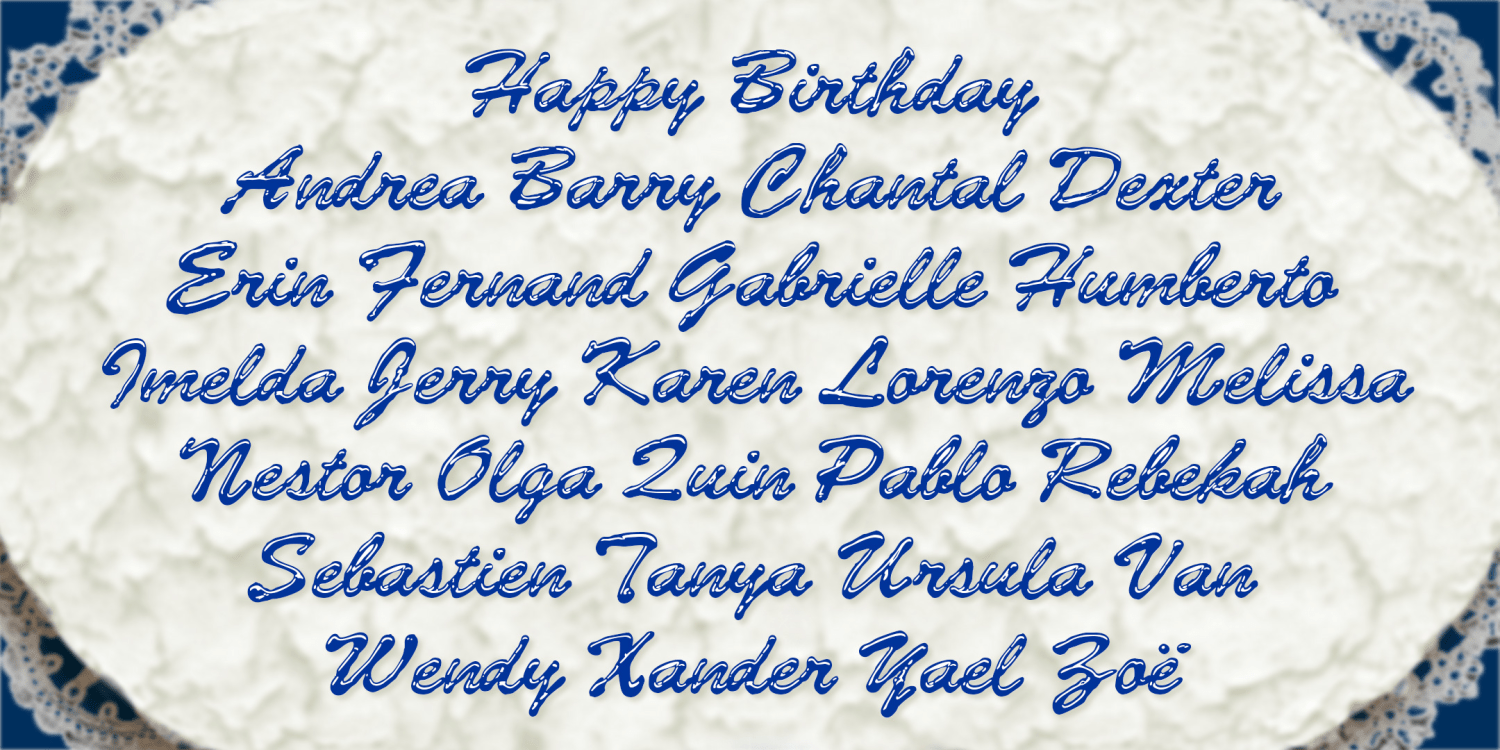
Blooper & Bloop Script Bundle
Font Bundle by Harold's Fonts
BLOOPER and BLOOP SCRIPT were created to have the look of letters formed by puddles of shiny liquid. The general forms were inspired by the classic fonts Cooper Black and Brush Script. To create these fonts, I started by actually drawing all the letters with glossy 3-D acrylic paint, and then scanning them, although I could have faked it in Photoshop. The paint bottles have a definite tendency to bloop! In each set, the Solid font has no highlights and can be layered behind the Regular in a different color.